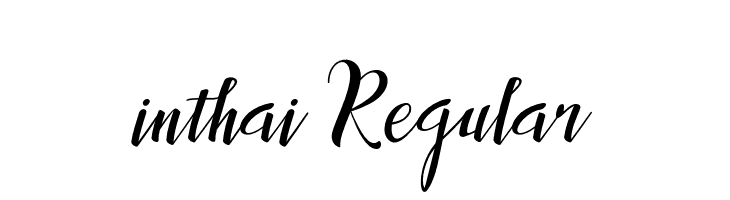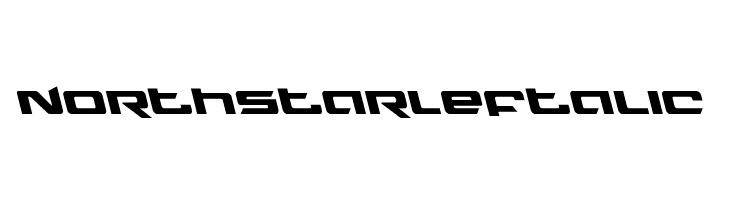
A refined and elegant script font with flowing cursive letterforms.
A bold, playful font with interconnected, bubble-like characters.
A wavy, italicized font with a playful and dynamic style.
A bold, industrial font with mechanical and rivet-like details.
A bold, italicized font with a zigzag pattern, conveying speed and energy.
A flowing, elegant script font with bold, expressive strokes.
An elegant script font with flowing, interconnected letters and intricate swashes.
A bold, italicized font with a futuristic and sporty design.
A bold, dynamic brush script font with expressive strokes.
A flowing, cursive font with elegant, handwritten signature style.